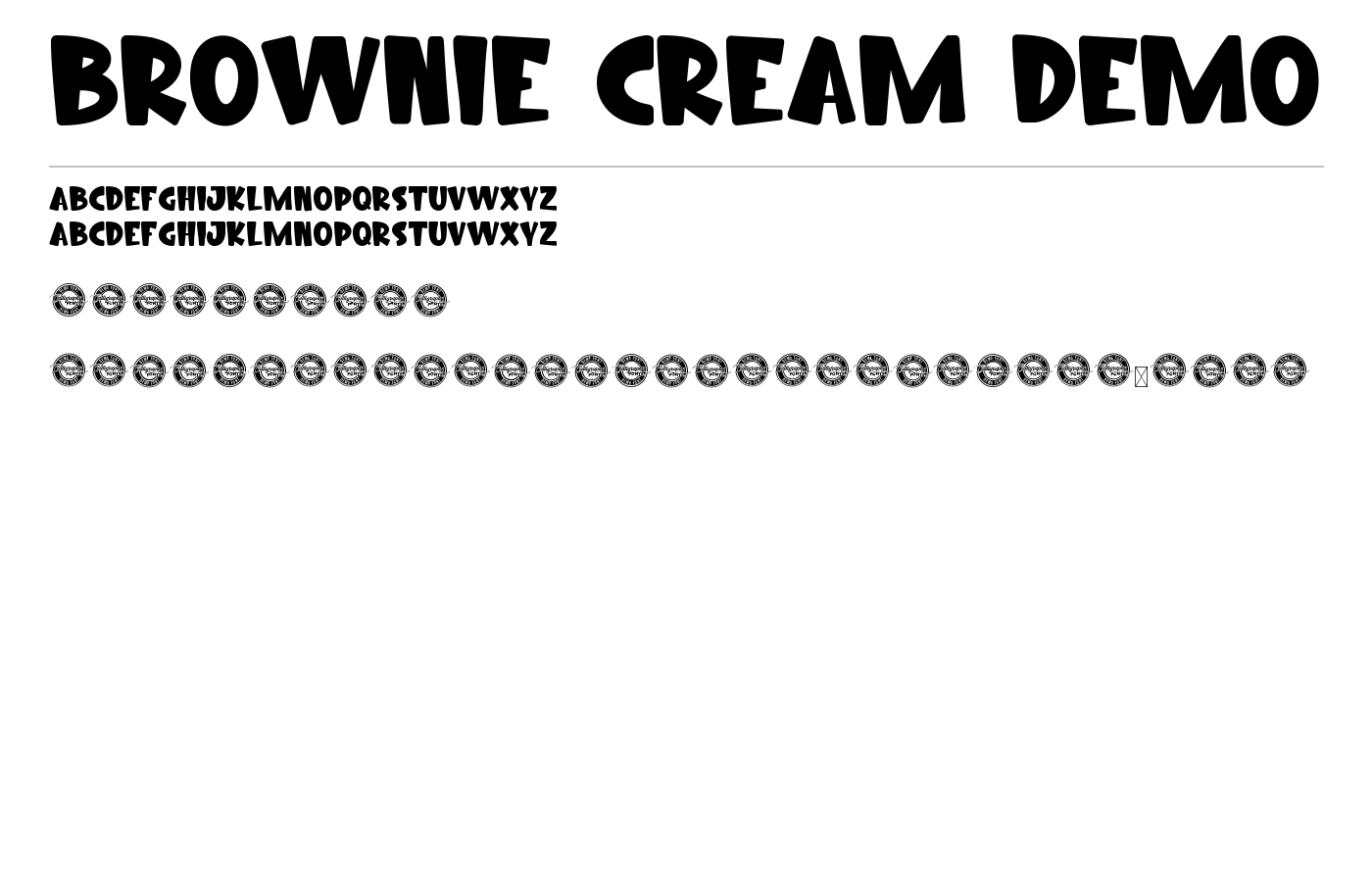
Brownie Cream Demo is a bold, playful sans-serif font with a friendly and informal feel. Its thick, slightly irregular letterforms and high x-height create a fun, approachable look ideal for casual branding, children’s materials, and eye-catching headlines. This font works well where a lively, energetic style is needed to grab attention while maintaining readability.
Brownie Cream Demo Font
About Brownie Cream Demo Font